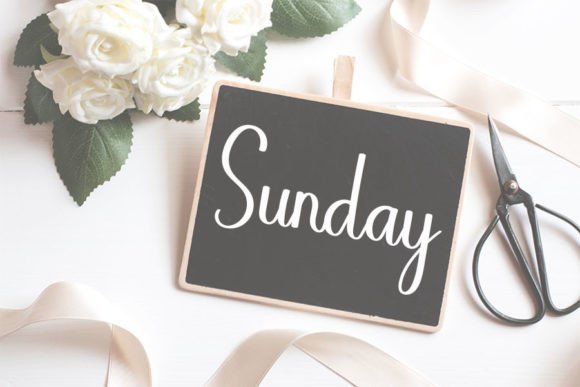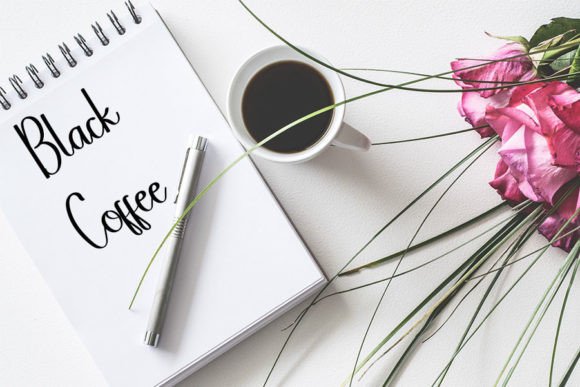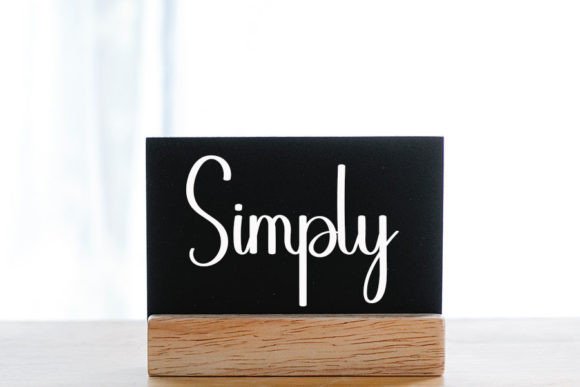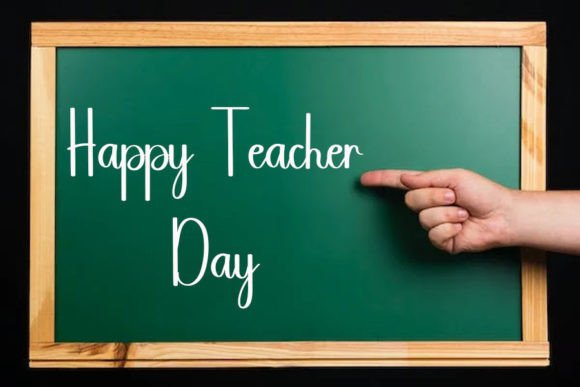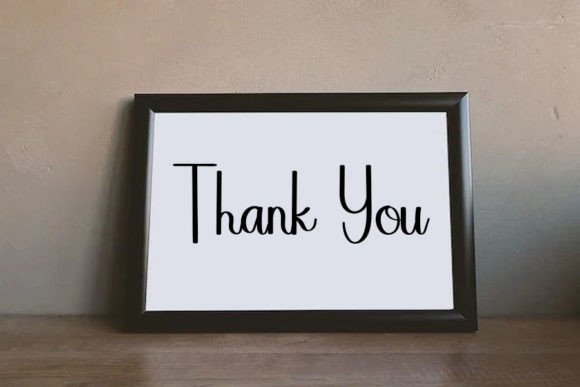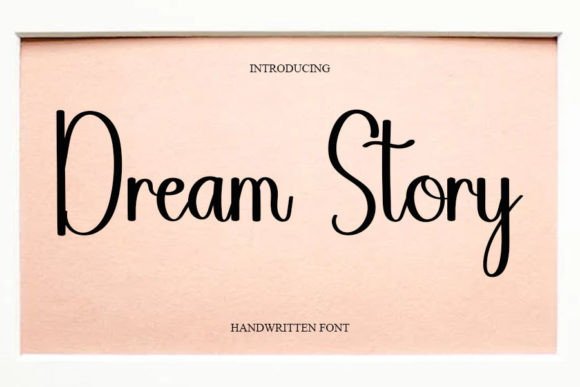
Dream Story Font: Elevate Your Designs with Elegance
Are you on the hunt for a font that exudes elegance and sophistication? Look no further than the Dream Story Font. This beautiful handwritten font is designed to add a touch of class to your favorite projects, making it perfect for designers and crafters alike. With its incredibly distinct and timeless style, Dream Story Font is sure to capture your heart and inspire your creativity.
The Charm of Dream Story Font
Dream Story Font is a neat and beautiful handwritten font that boasts an elegant touch. Its unique and refined style sets it apart from other fonts, making it an excellent choice for those who want to create spectacular designs. Whether you’re working on a branding project, crafting a logo, or designing a social media graphic, Dream Story Font is the perfect companion to help you achieve your creative vision.
Key Features of Dream Story Font
- Elegant and Refined Style: Dream Story Font features a beautiful, handwritten design that’s both elegant and refined.
- Timeless Appeal: This font’s classic style ensures it will remain relevant for years to come, making it a great investment for designers and crafters.
- Distinctive Character: Dream Story Font has an incredibly distinct style that sets it apart from other fonts, giving your designs a unique edge.
- Versatile: This font is perfect for a wide range of projects, from branding and logos to social media graphics and more.
Why Choose Dream Story Font?
With so many fonts available, why choose Dream Story Font? Here are just a few reasons why designers and crafters are falling in love with this beautiful font:
- Easy to Read: Despite its elegant style, Dream Story Font is easy to read, making it perfect for body text and headlines.
- Highly Versatile: This font works beautifully in a variety of contexts, from digital designs to print materials.
- Unique Style: Dream Story Font’s distinctive style ensures your designs will stand out from the crowd.
Using Dream Story Font in Your Designs
So, how can you use Dream Story Font in your designs? Here are a few ideas to get you started:
- Branding and Logos: Use Dream Story Font to create a beautiful and elegant logo that reflects your brand’s personality.
- Social Media Graphics: Add a touch of class to your social media graphics with this stunning font.
- Web Design: Use Dream Story Font to create a beautiful and elegant website that showcases your brand’s style.
- Print Materials: This font is perfect for print materials, such as brochures, flyers, and business cards.
Tips for Getting the Most Out of Dream Story Font
To get the most out of Dream Story Font, here are a few tips to keep in mind:
- Experiment with Different Sizes: Dream Story Font looks beautiful in a range of sizes, from large headlines to smaller body text.
- Pair with Other Fonts: Try pairing Dream Story Font with other fonts to create a unique and eye-catching design.
- Use it Consistently: Use Dream Story Font consistently throughout your design to create a cohesive and elegant look.
In conclusion, Dream Story Font is a beautiful and elegant handwritten font that’s perfect for designers and crafters. With its incredibly distinct and timeless style, this font is sure to capture your heart and inspire your creativity. Whether you’re working on a branding project, crafting a logo, or designing a social media graphic, Dream Story Font is the perfect companion to help you achieve your creative vision.